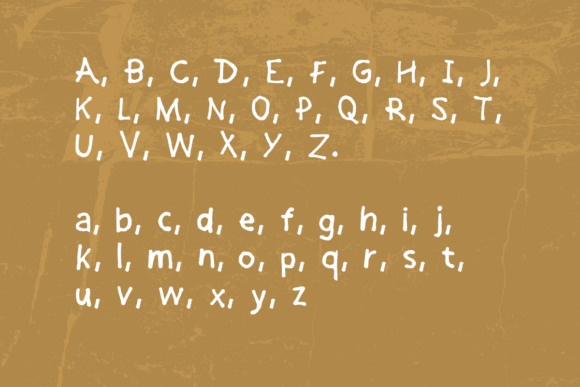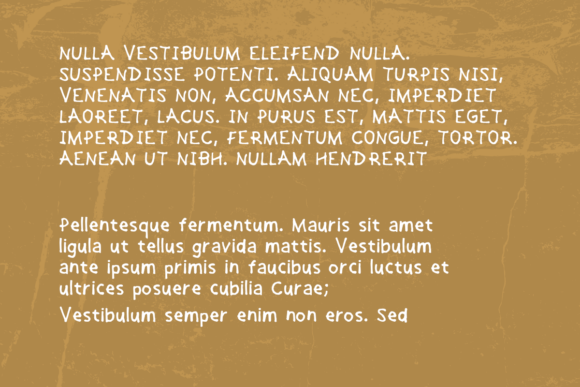
Bad Handwriting Font
About Bad Handwriting Font
Bad Handwriting is a cool and friendly handwritten font designed to add a touch of casual charm to your creative projects. Whether you’re working on product packaging, branding projects, magazine covers, social media content, wedding materials, or any design that calls for a laid-back and approachable aesthetic, Bad Handwriting fits the bill perfectly.
The cool and friendly characteristics of Bad Handwriting set it apart, making it ideal for designs that aim to convey a relaxed and informal vibe. The handwritten style adds a personal touch, creating a sense of authenticity and friendliness in your text.
This font is versatile, adapting seamlessly to various design contexts. Its laid-back nature makes it a great choice for projects where you want to express words above the background with a cool and effortless flair. Whether you’re aiming for a casual branding approach or want to infuse a friendly atmosphere into your social media posts, Bad Handwriting is ready to deliver.
Bad Handwriting isn’t just a font; it’s a tool to effortlessly express your words with a cool and friendly demeanor. Its adaptability and approachable style make it a valuable asset for adding a touch of authenticity to your branding, packaging, and other creative projects.
In summary, Bad Handwriting is a cool and friendly handwritten typeface that brings a relaxed and approachable vibe to your designs. Whether used for product packaging, branding, or social media content, let Bad Handwriting be the font that effortlessly communicates your words with a cool and friendly charm, making your projects stand out with ease.